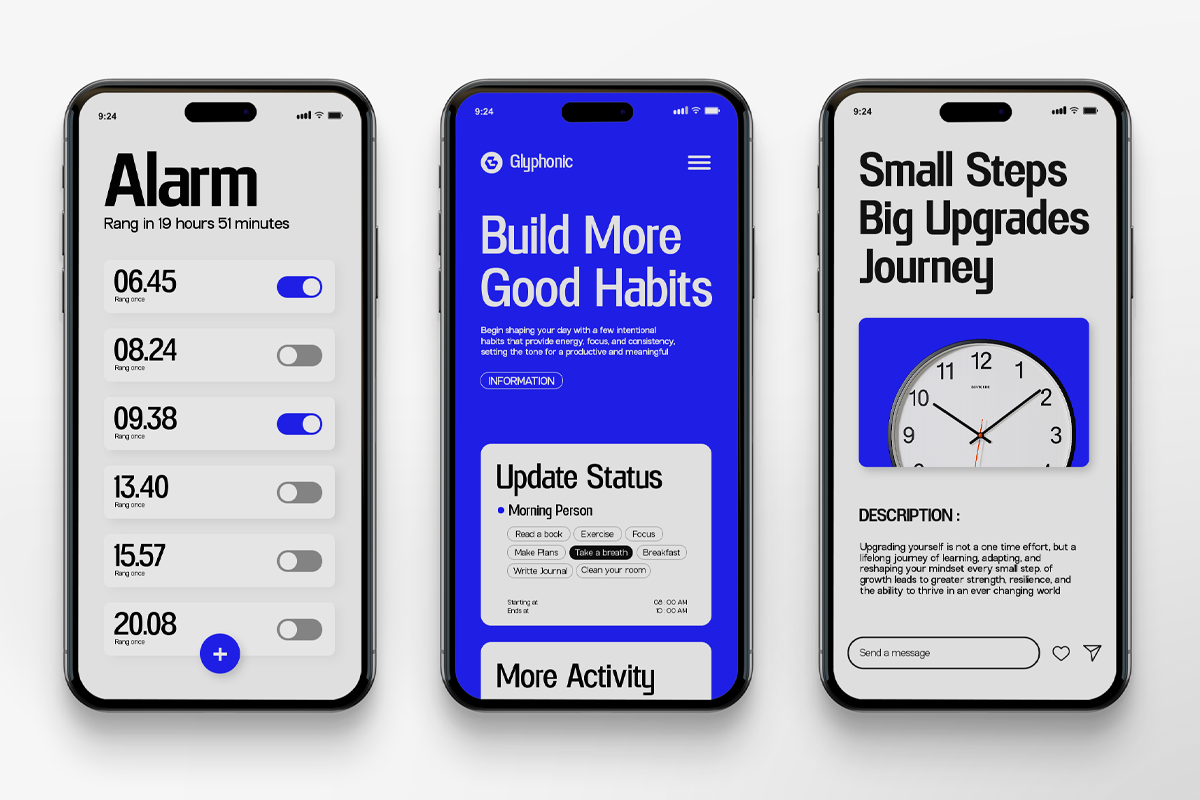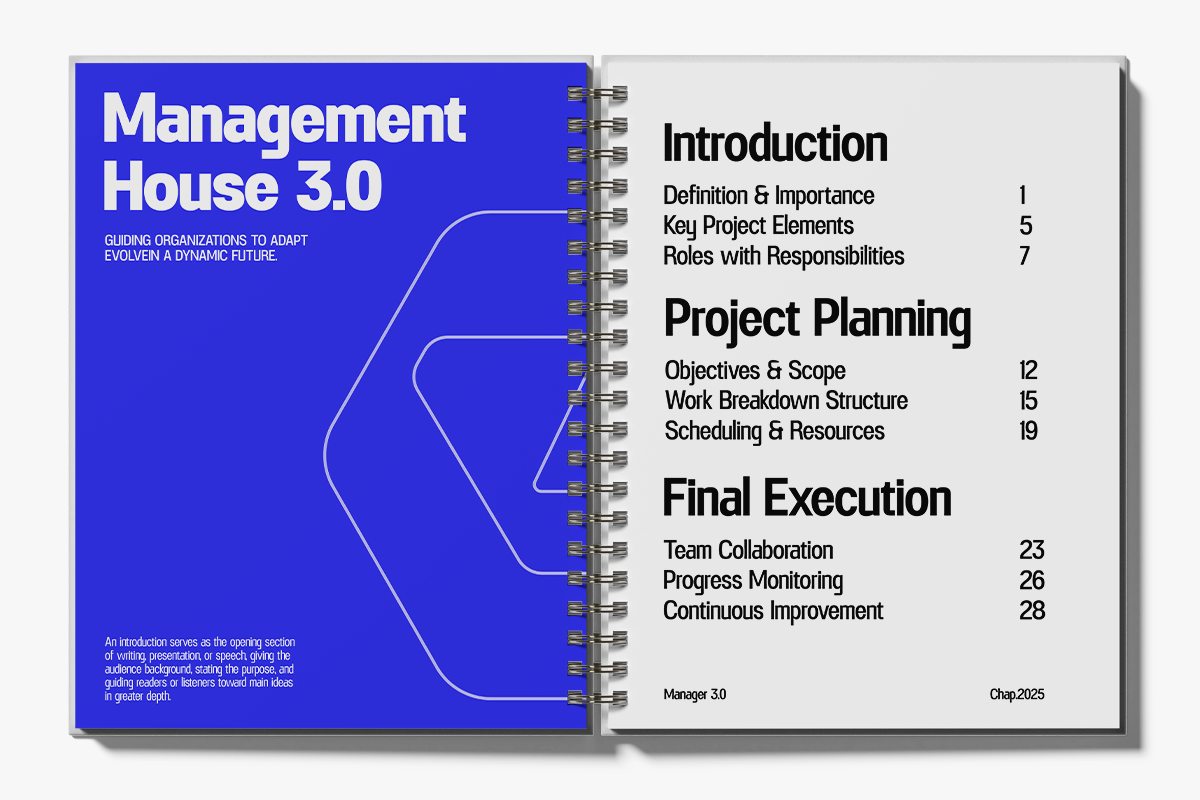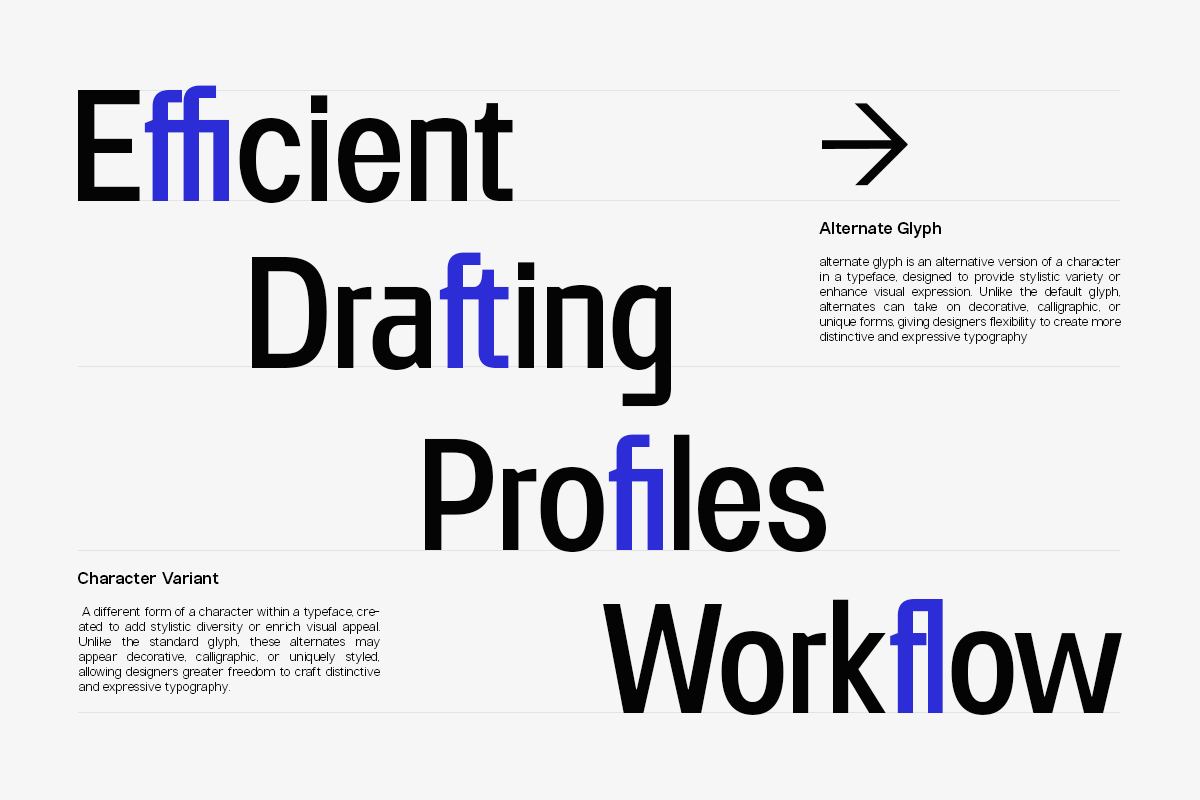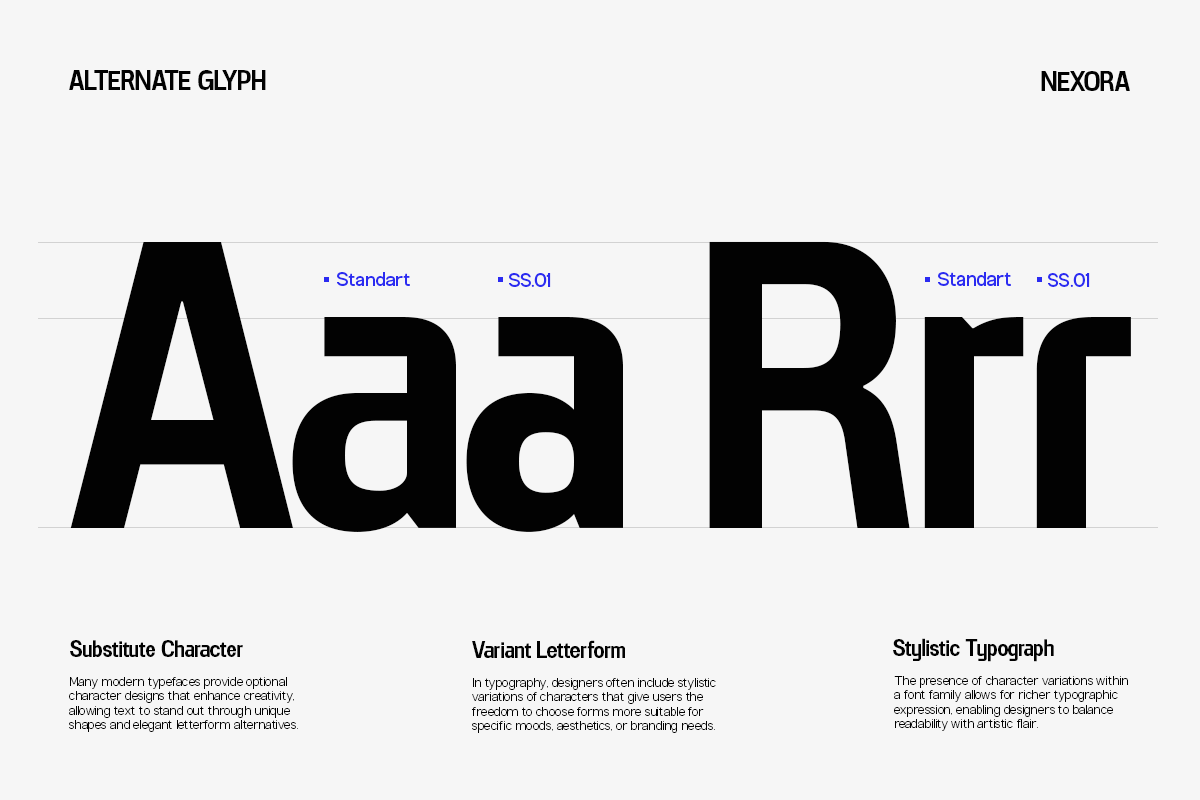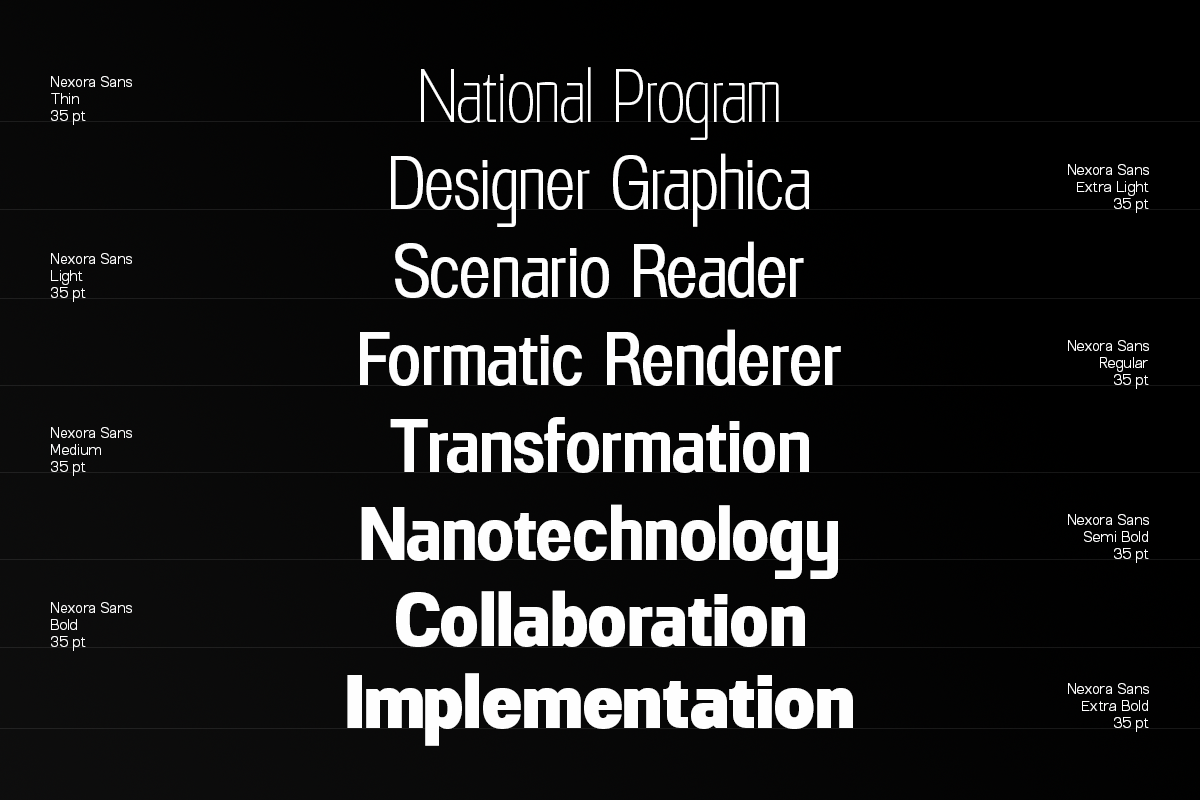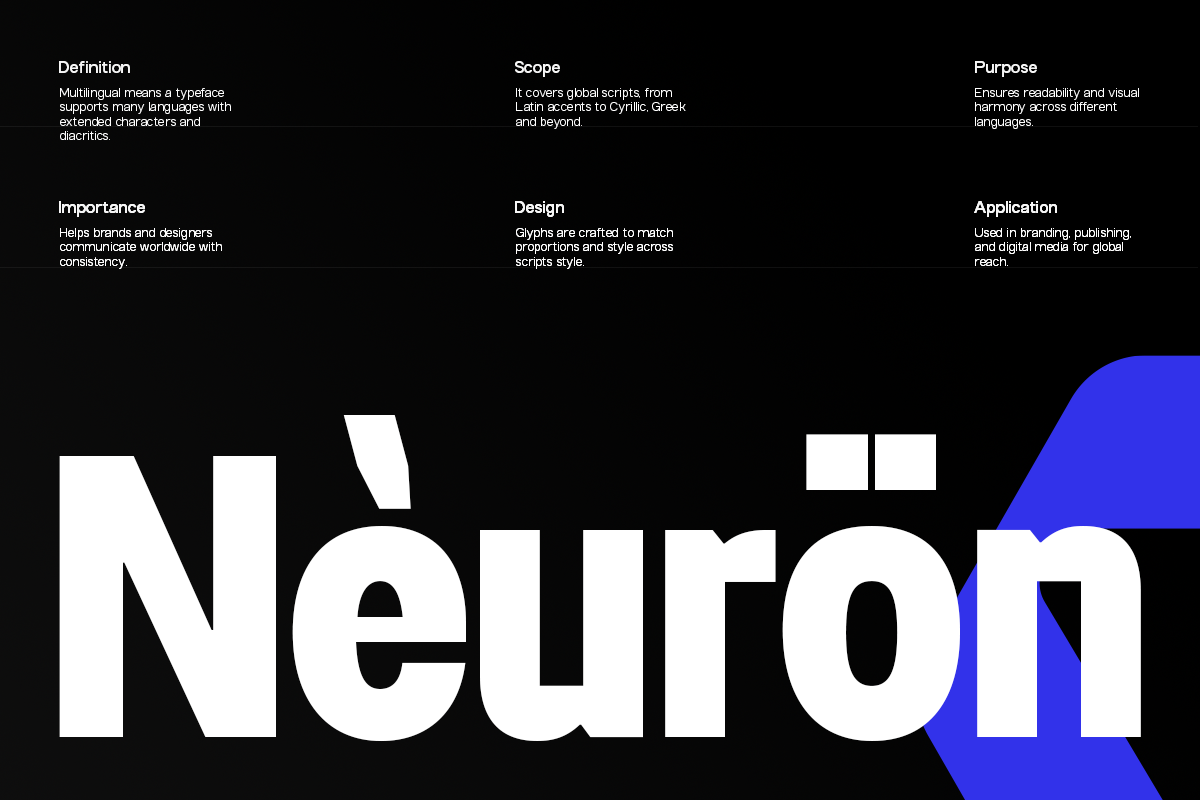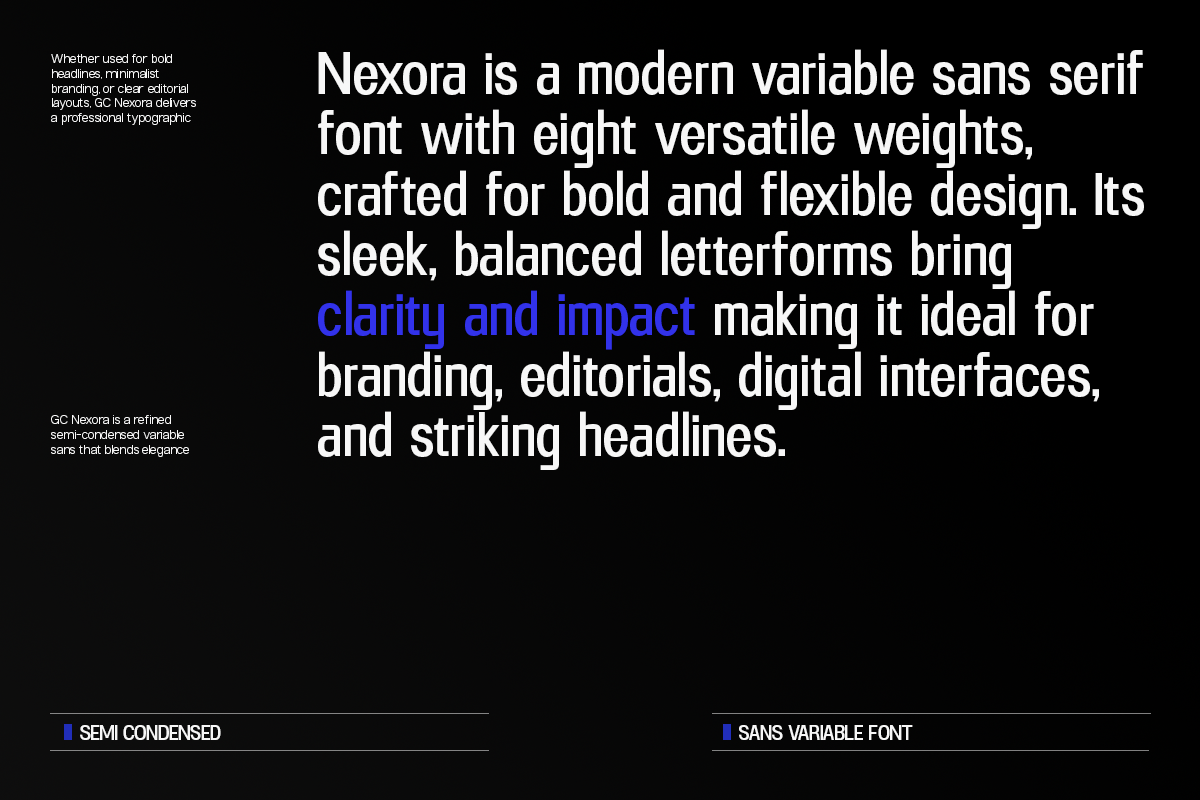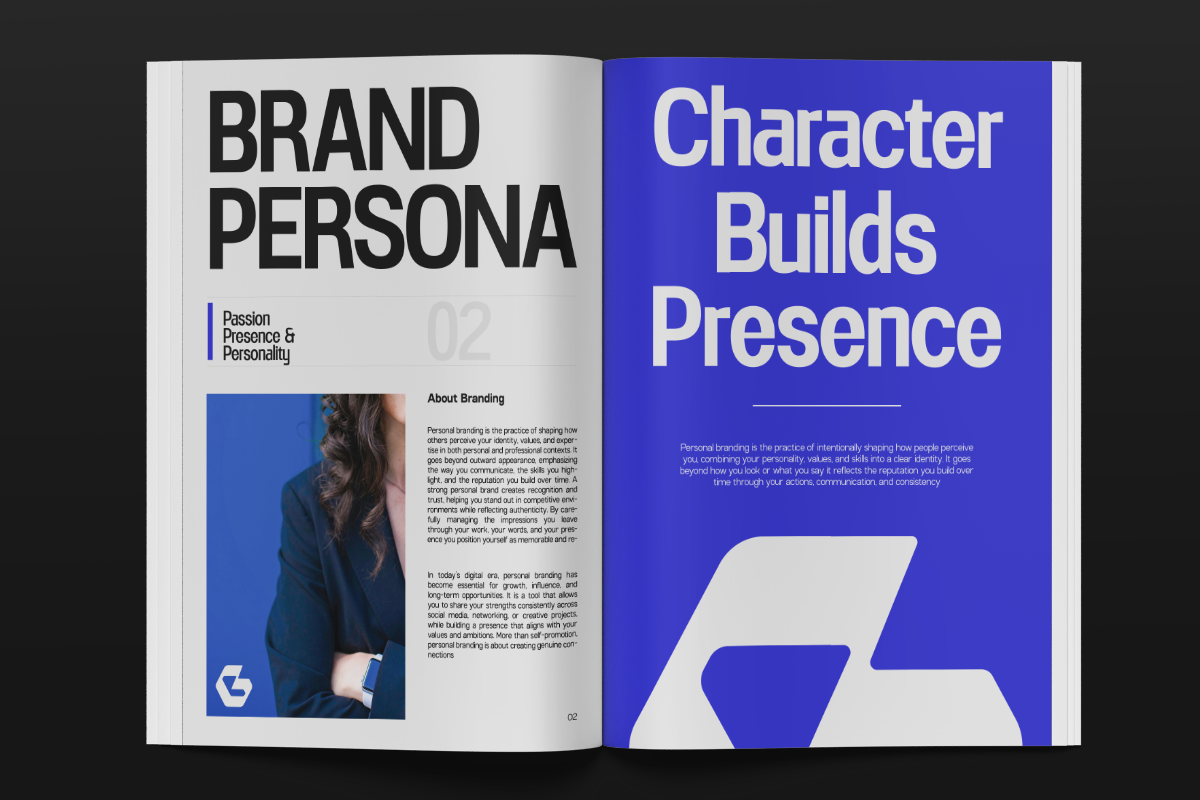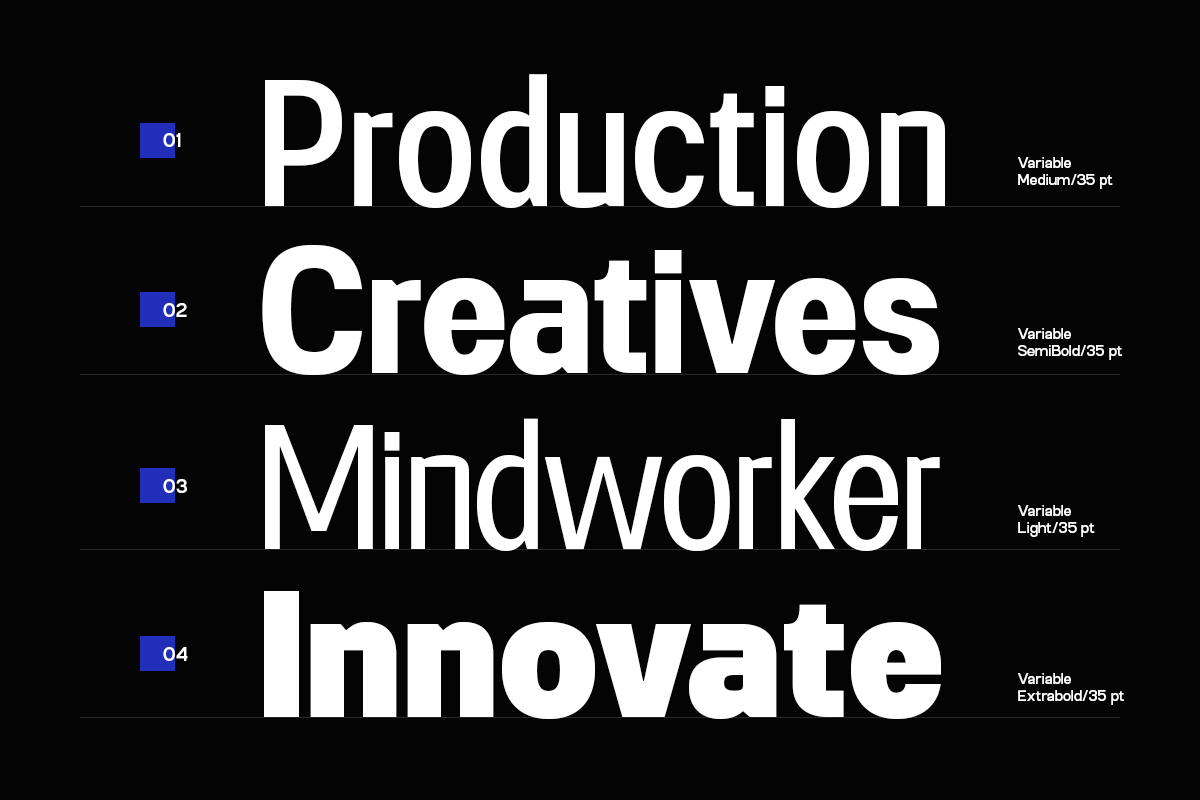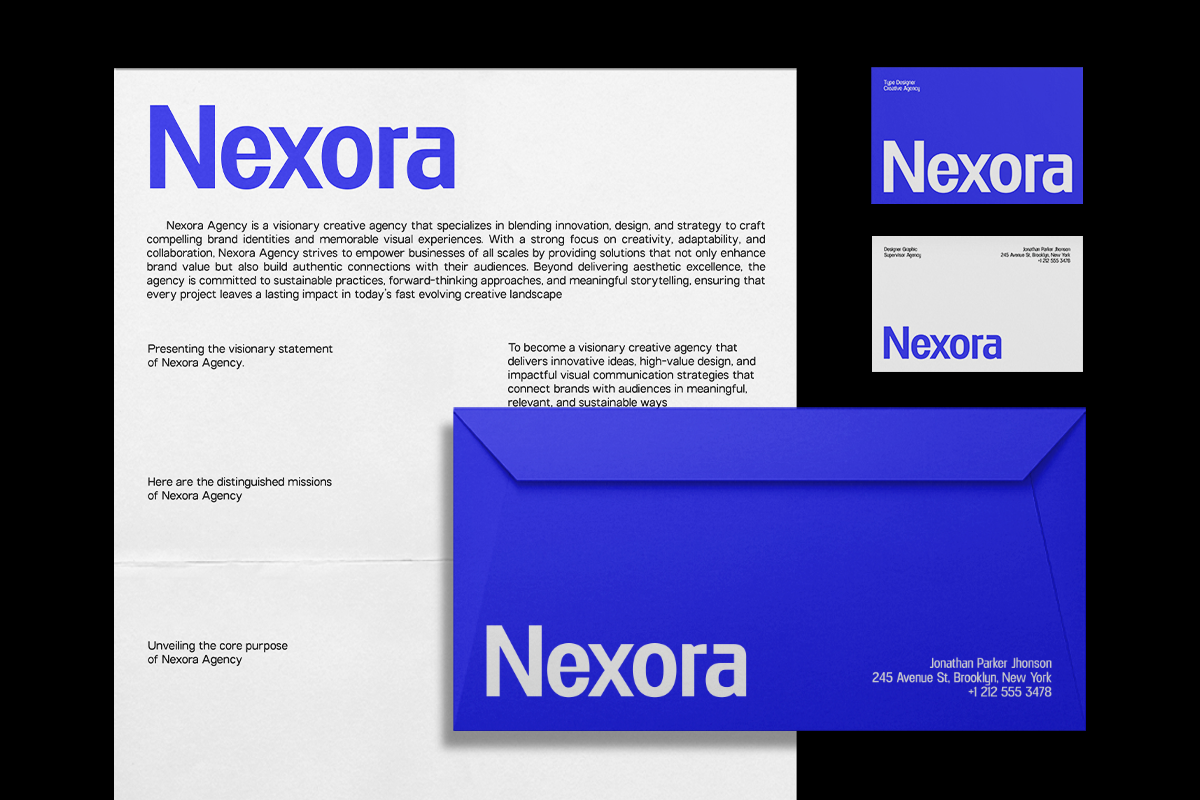
GC Nexora – Modern Variable Sans
GC Nexora – Modern Variable Sans is a contemporary sans-serif typeface designed for precision, versatility, and bold visual impact. With variable weights and widths, it offers complete flexibility across digital and print platforms—perfect for brands, headlines, interfaces, and editorial designs that demand clarity and modern sophistication.
Its semi-condensed form balances efficiency with strong readability, while the geometric construction adds a clean and confident tone. Crafted for designers who value both adaptability and character, GC Nexora brings a sense of power, control, and forward-thinking style to every layout.
- Variable & Static Versions
- Semi-Condensed Structure
- Multilingual Support (170+ Languages)
Achieve balance, modernity, and precision with GC Nexora — the ultimate sans for expressive, adaptable design.